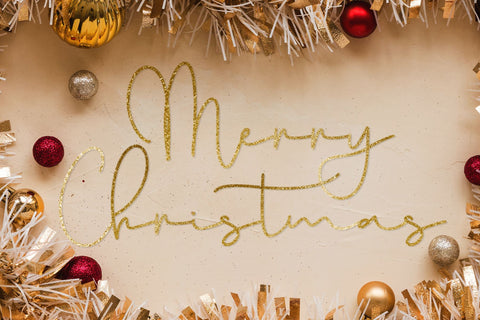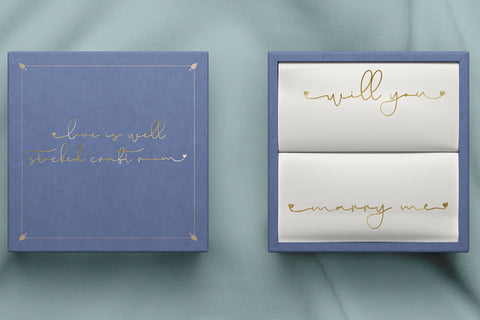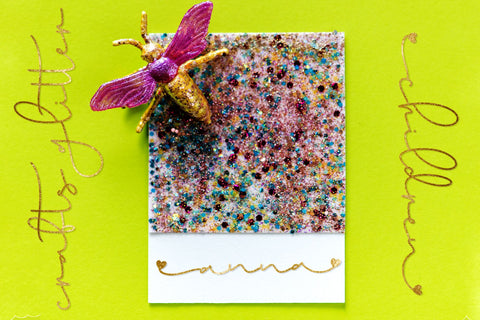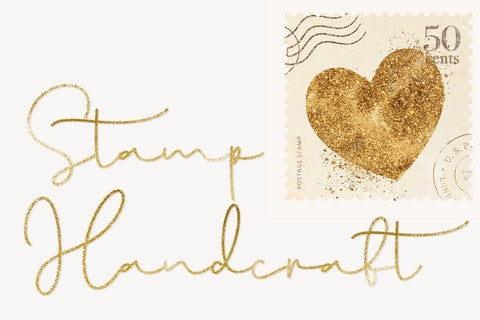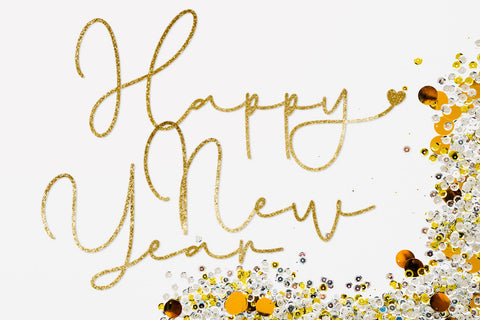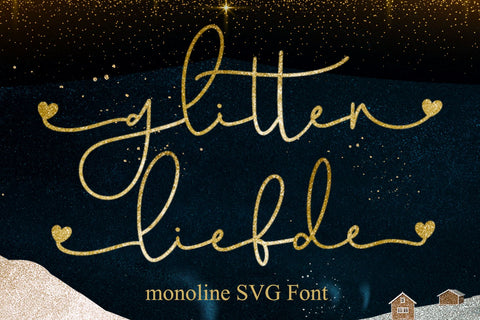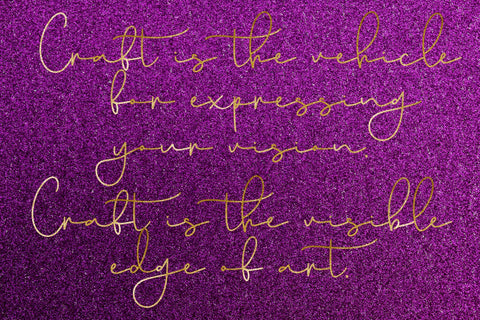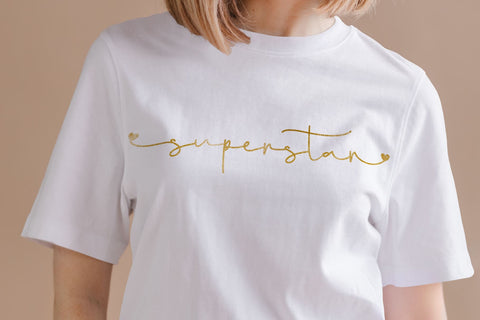
Glitter liefde - svg font
Glitter liefde is a handwritten script font with a ton of fun alternates. this is the SVG version of our other font (liefde font) !
SVG font with glitter effect will turn any creative idea into a true piece of art!
Every letter has a unique and beautiful touch, which will make your design come alive!
All alternative characters are already in the font.